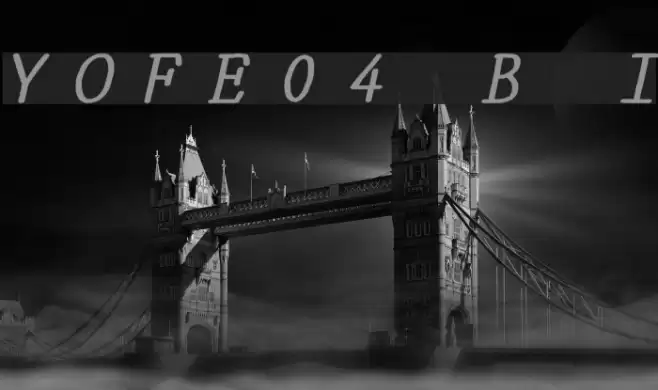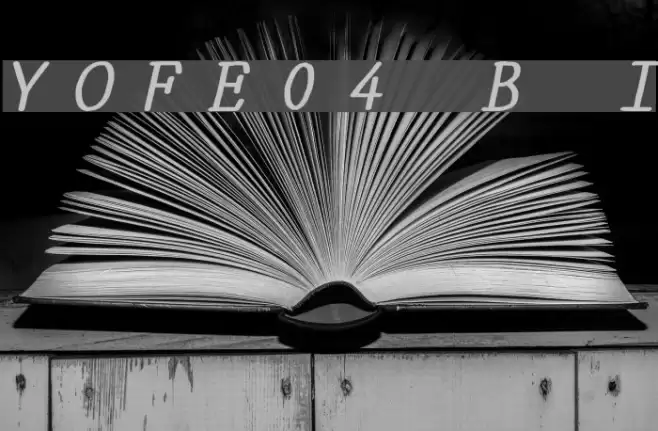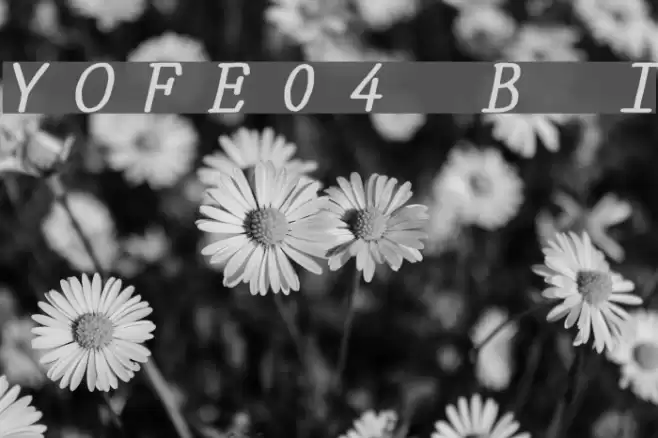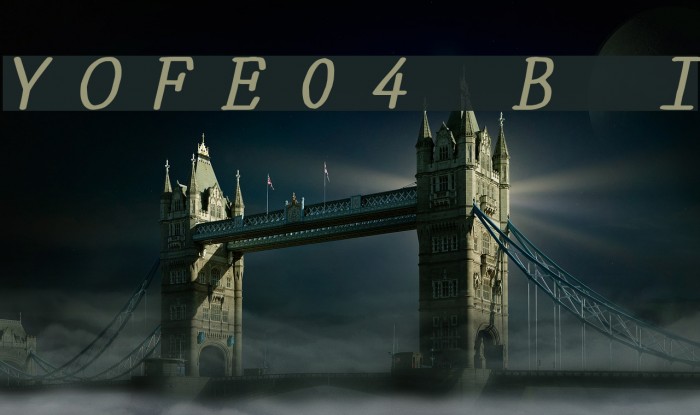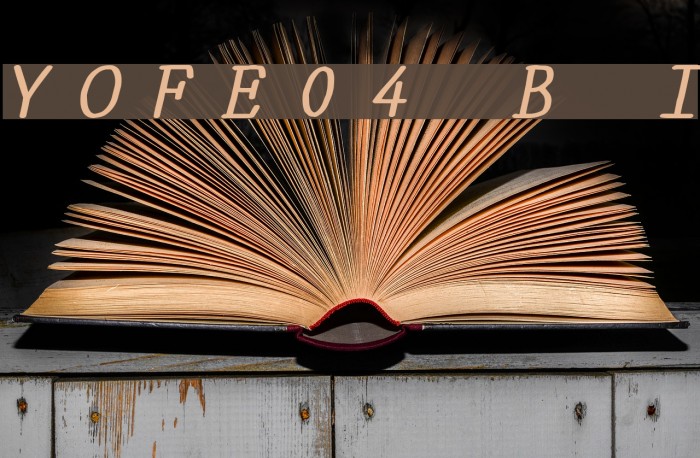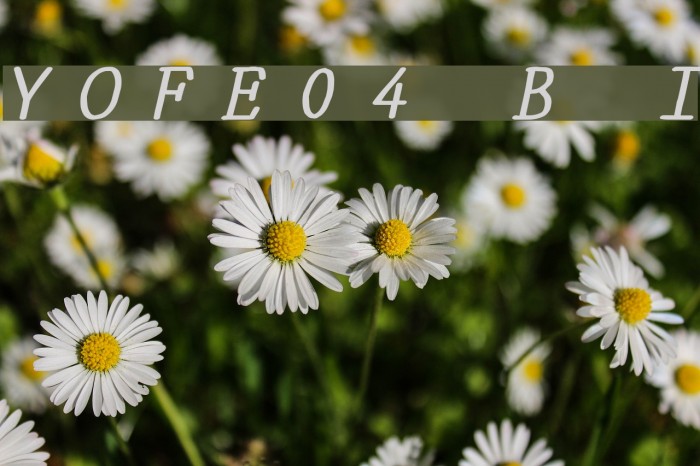
YOzFontE04 Bold Italic Font
YOzFontE04 Bold Italic Description
This font features a bold and italicized style with a distinct slant, giving it a dynamic and energetic appearance. The characters are well-defined with a moderate stroke contrast, enhancing readability while maintaining a stylish flair. The uppercase letters are slightly taller than the lowercase, providing a balanced and harmonious look. The numerals and special characters are consistent with the overall design, ensuring uniformity across all text. This font's unique blend of elegance and boldness makes it suitable for a variety of creative applications.
A bold, italicized font with a dynamic and stylish appearance.